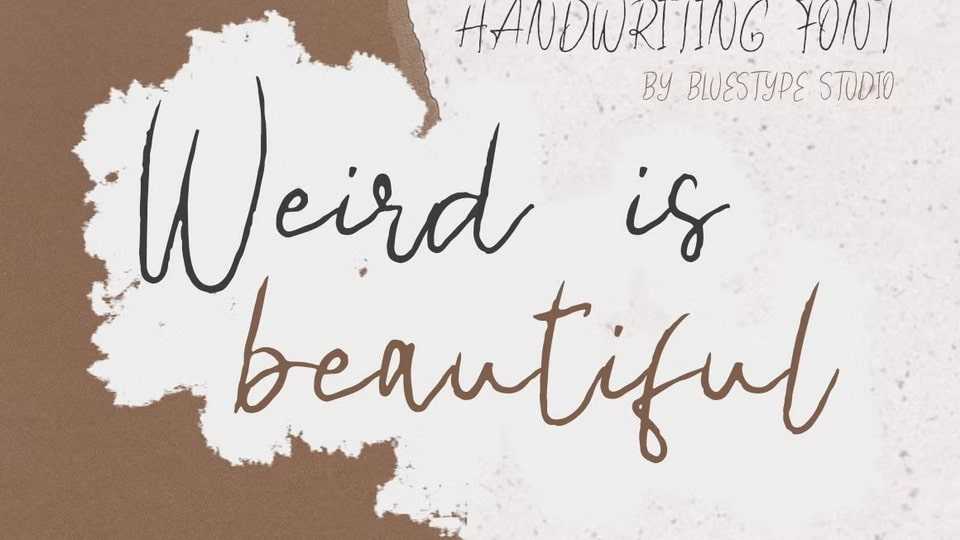
Download Weird is Beautiful font, a typeface that combines uniqueness and natural beauty, created with beautiful pencil strokes and is suitable for those of you who want a unique design.